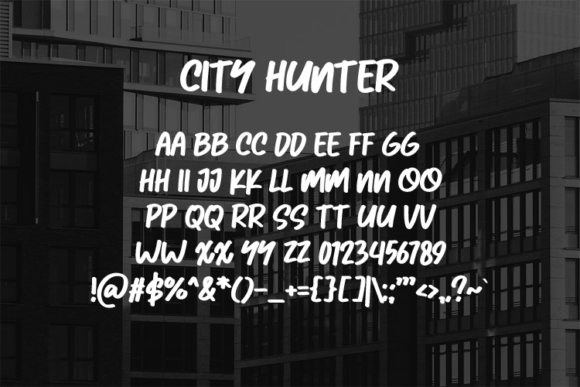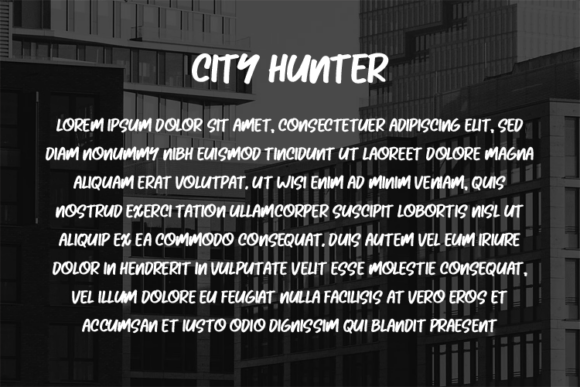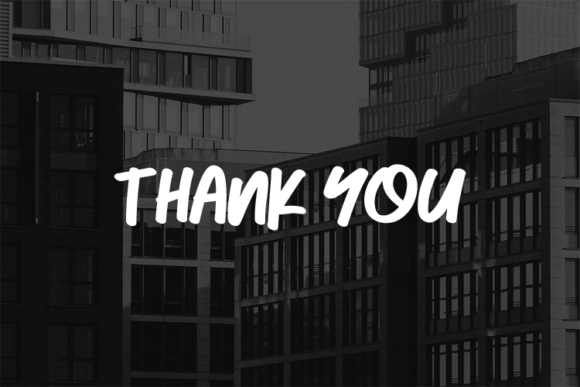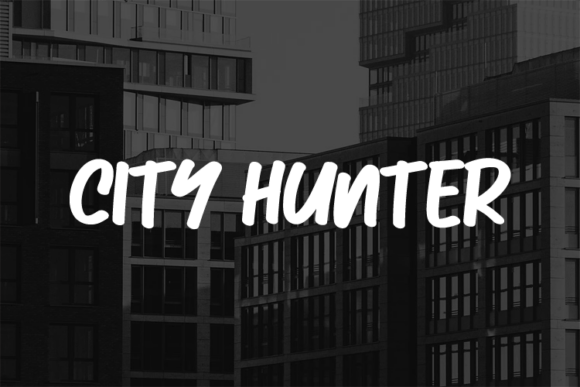
City Hunter Font: Elevate Your Designs with Modern Elegance
In the world of typography, a font can make all the difference in the success of a design project. For designers and crafters seeking a modern and elegant typeface that offers flexibility and excellent readability, City Hunter Font is an exceptional choice. This versatile font is designed to excel across various media, making it perfect for a wide range of applications, from digital designs to print materials.
What is City Hunter Font?
City Hunter Font is a contemporary typeface crafted with precision and attention to detail. Its sleek and refined design ensures that it remains legible even at small sizes, making it an excellent option for body text, headings, and titles. The font’s modern aesthetic is perfect for designers looking to add a touch of sophistication to their work.
Key Features of City Hunter Font
• Modern and Elegant Design: City Hunter Font boasts a sleek and refined design that adds a touch of sophistication to any project.
• Excellent Readability: The font’s clear and legible design ensures that it remains easy to read across various media, including digital screens and print materials.
• Flexible and Versatile: City Hunter Font is designed to work seamlessly across a range of applications, from design software to office applications.
Benefits of Using City Hunter Font
City Hunter Font offers numerous benefits for designers and crafters, including:
• Time-Saving: With its excellent readability and versatility, City Hunter Font saves designers time and effort in selecting and pairing fonts.
• Consistency: The font’s consistent design ensures that projects maintain a cohesive look and feel, even when working with multiple font sizes and styles.
• Professional Results: City Hunter Font’s modern and elegant design helps designers achieve professional-looking results that impress clients and audiences.
Use Cases for City Hunter Font
City Hunter Font’s versatility makes it suitable for a wide range of applications, including:
• Branding and Logo Design: The font’s modern and elegant design makes it perfect for creating professional-looking logos and brand identities.
• Digital Design: City Hunter Font works seamlessly across various digital platforms, including websites, mobile apps, and social media graphics.
• Print Materials: The font’s excellent readability and legibility make it ideal for print materials, such as brochures, flyers, and business cards.
• Packaging Design: City Hunter Font’s sleek and refined design makes it perfect for packaging design, including product labels and packaging inserts.
Font Name City Hunter Font
Author Eric Kusuma
City Hunter Font is an exceptional choice for designers and crafters seeking a modern and elegant typeface that offers flexibility and excellent readability. With its .otf (OpenType Font) file format and superior cross-platform compatibility, this font is perfect for a wide range of applications, from digital designs to print materials. Whether you’re working on a branding project, digital design, or print materials, City Hunter Font is sure to elevate your designs and help you achieve professional-looking results.